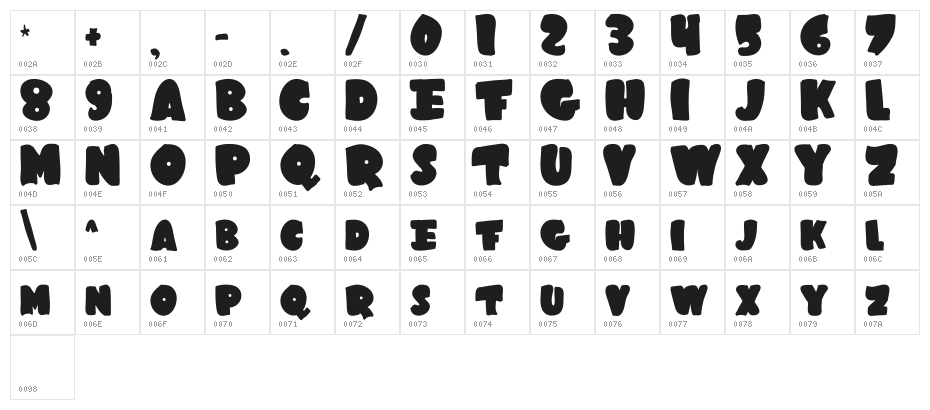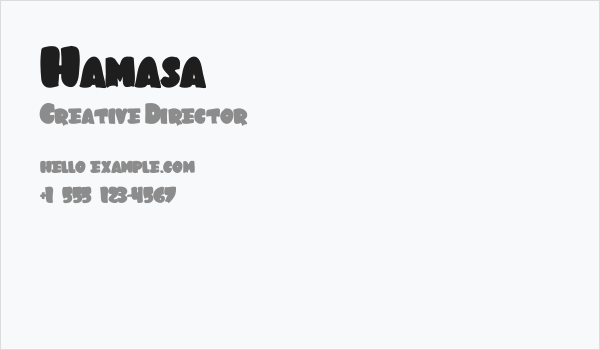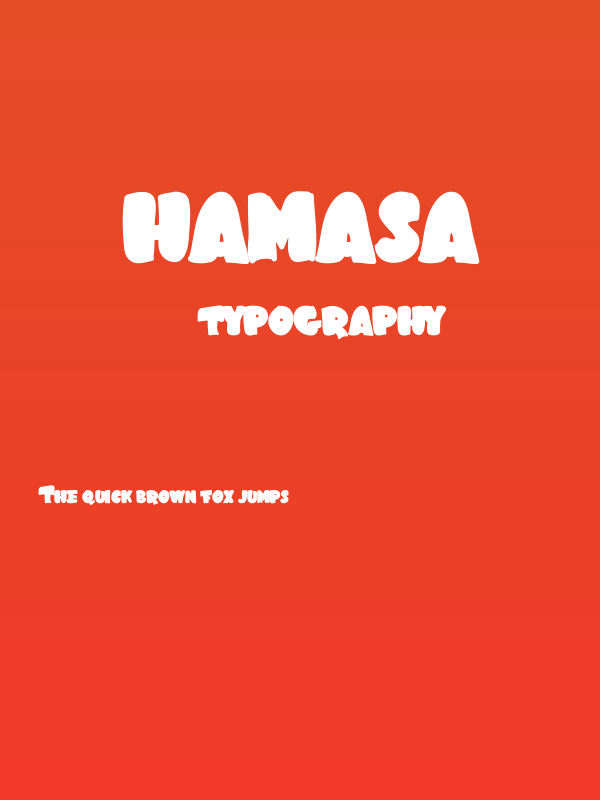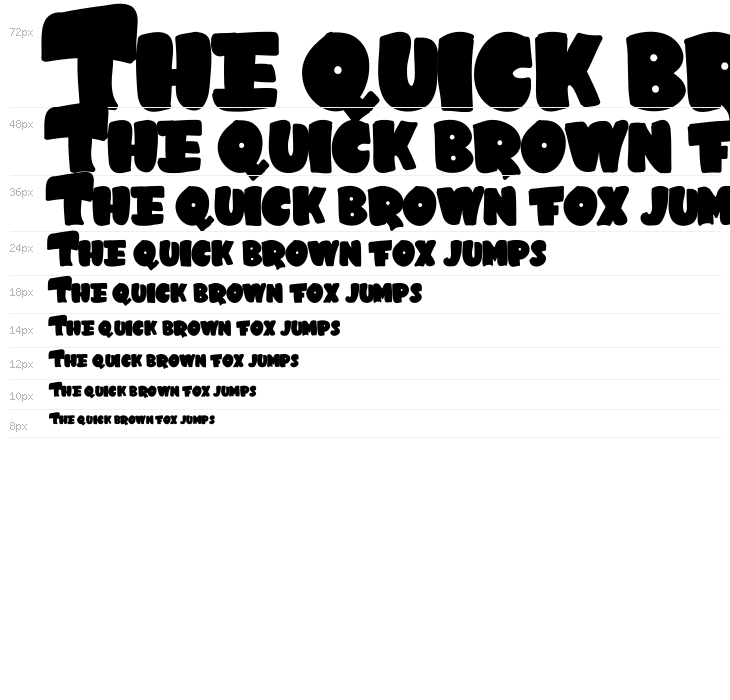
Hamasa Font
Hamasa Description
This font features bold, rounded characters with a playful and chunky appearance. The letters are uniformly thick, creating a strong visual impact. The style is reminiscent of graffiti or street art, with a casual and informal vibe. The characters are tightly spaced, enhancing the boldness and making it suitable for eye-catching designs. The numbers and special characters maintain the same playful and robust style, ensuring consistency across all elements. This font is ideal for projects that require a fun and energetic feel, such as children's books, posters, or branding for creative industries.
| Overall Style | Playful, Casual |
| Proposed Projects | Children's books, posters, creative branding, street art-inspired designs. |